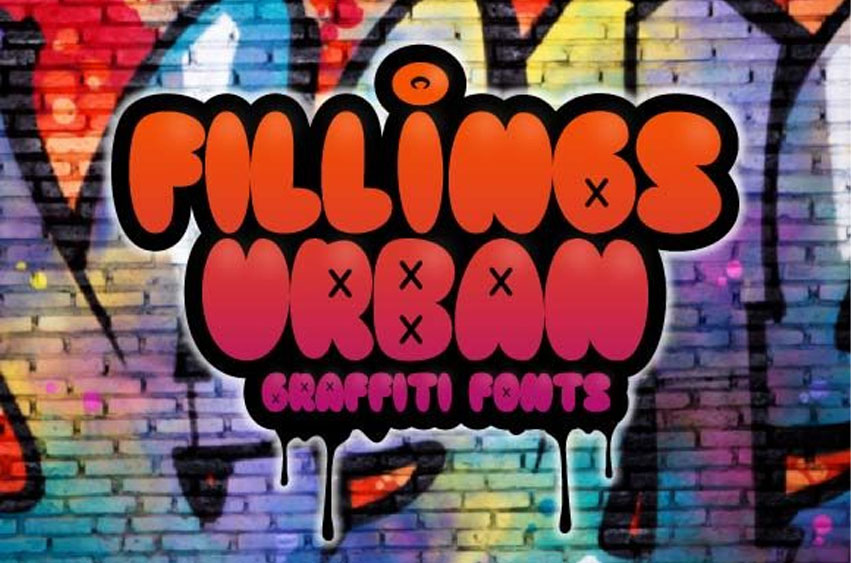
Fillings Urban Font is a graffiti styled, trendy display font.
This original look will appeal to a wide range of crafty ideas, from letterheads and titles, to stationery.